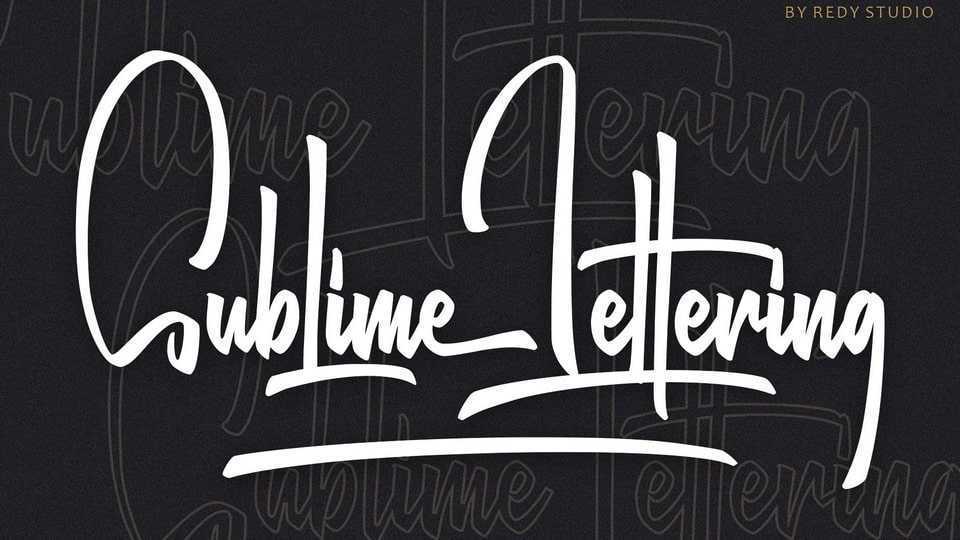
Download Sublime Lettering font, a handwritten typeface with a bold look that makes lovely text. Sublime Lettering is especially useful for making signatures or watermarks in photography studios.
Designer: Redy Studio